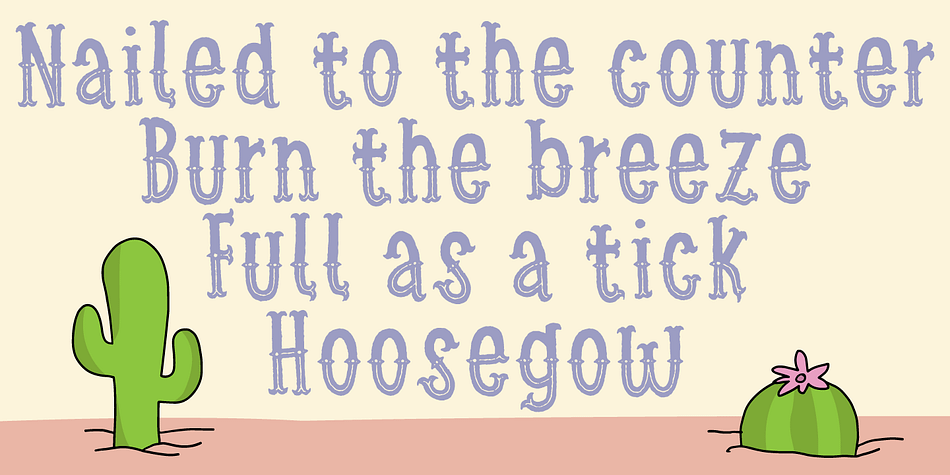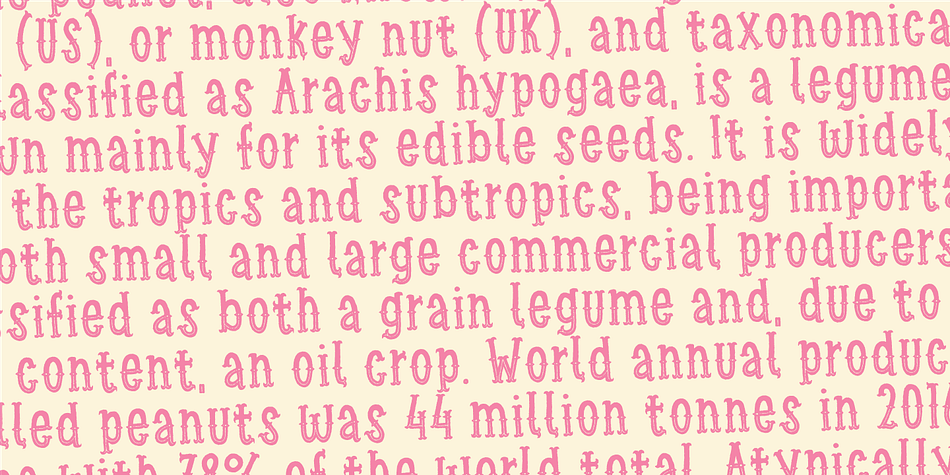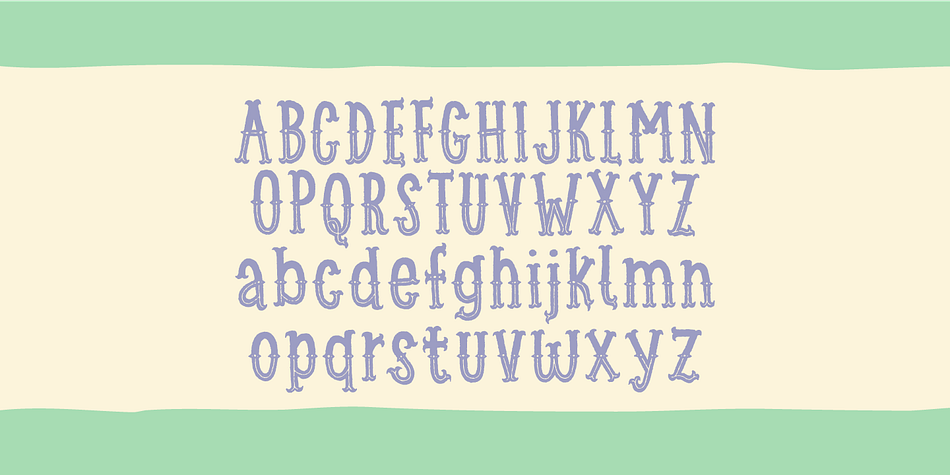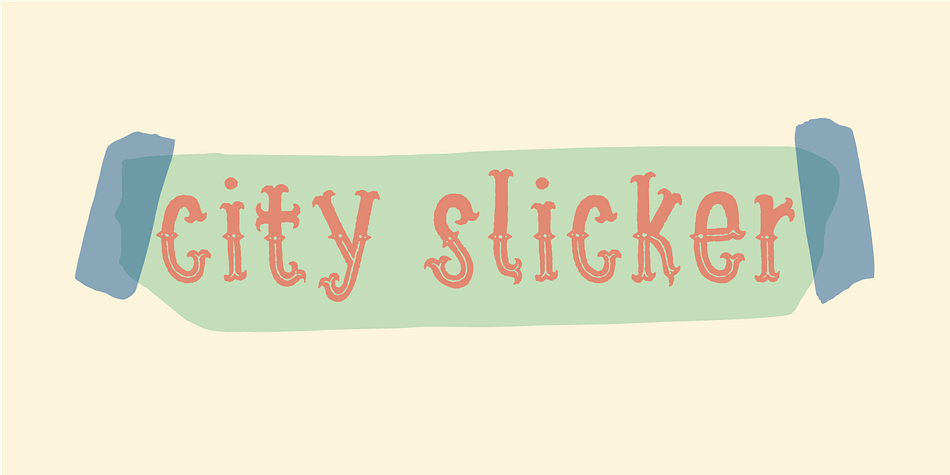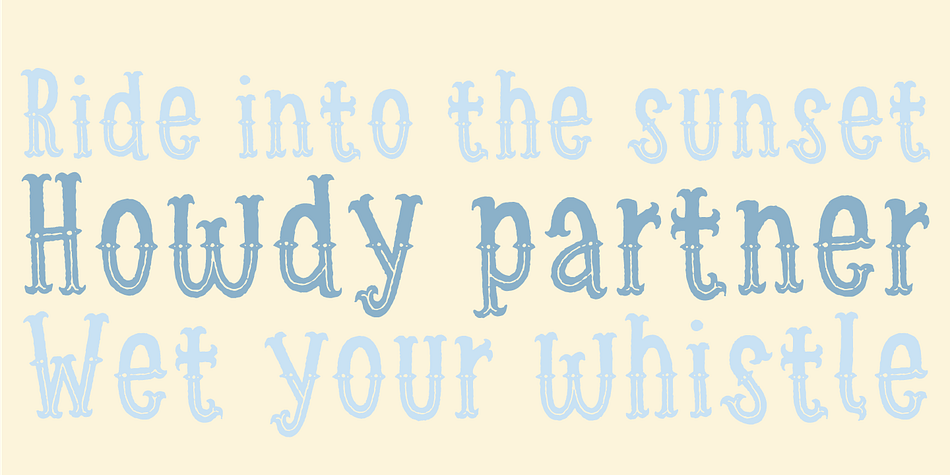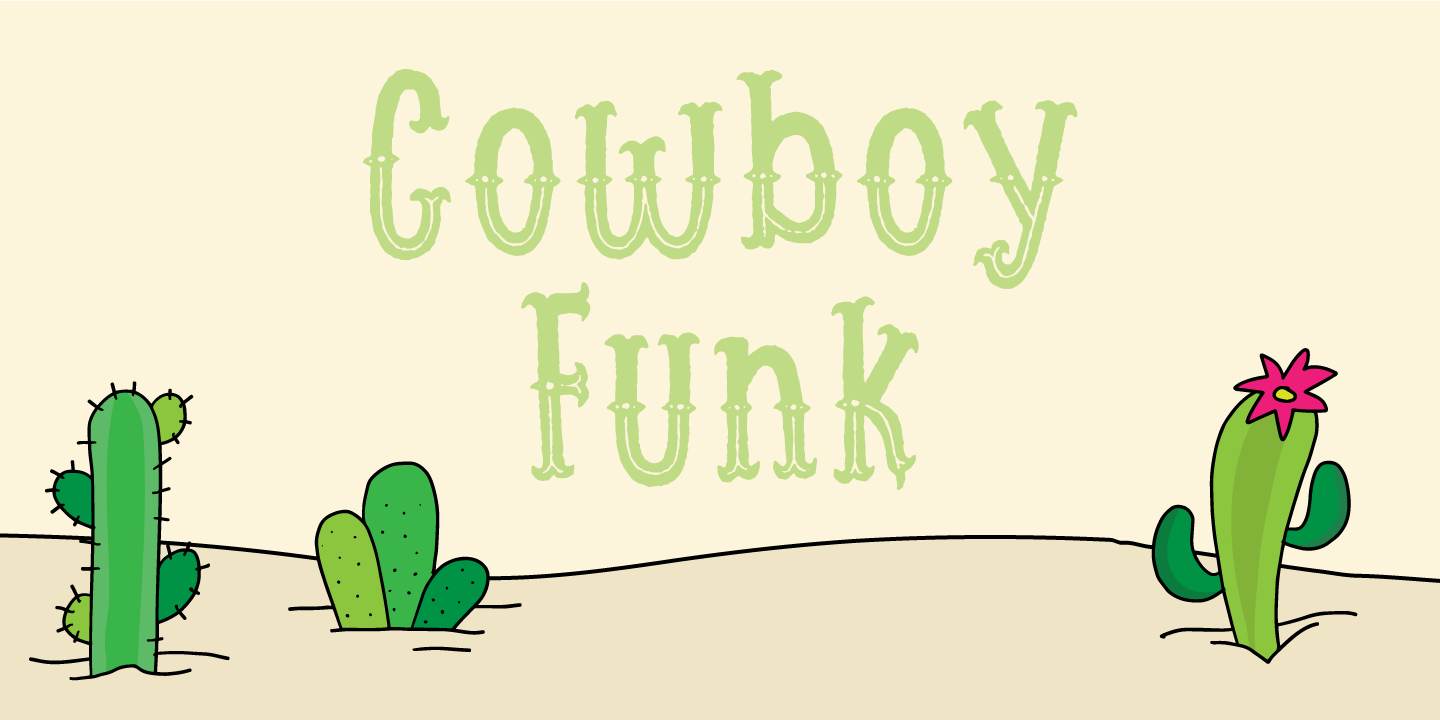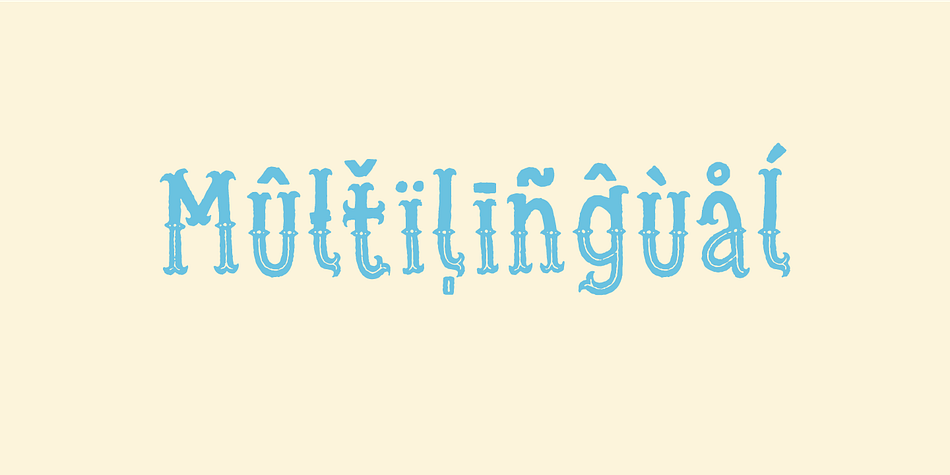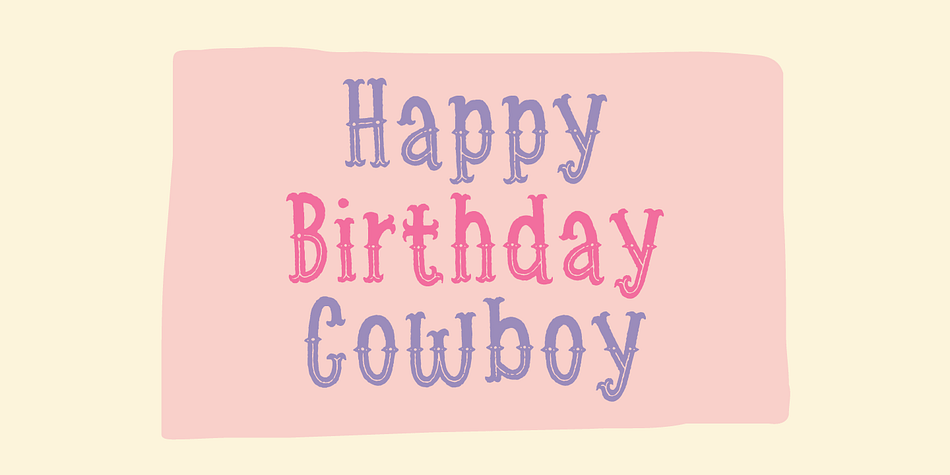
Designed by Jakob Fischer, Cowboy Funk is a hand drawn and western font family. This typeface has two styles and was published by Pizzadude.dk.
Howdy partner!
In need of a comic inspired cowboy font? Then Cowboy Funk is ready to ride with you into the sunset! :)
Dusty edges, thrilling spurs and shooting ornaments - the main ingredients of Cowboy Funk!
Multilingual support for all yall cowboys and gals! :)